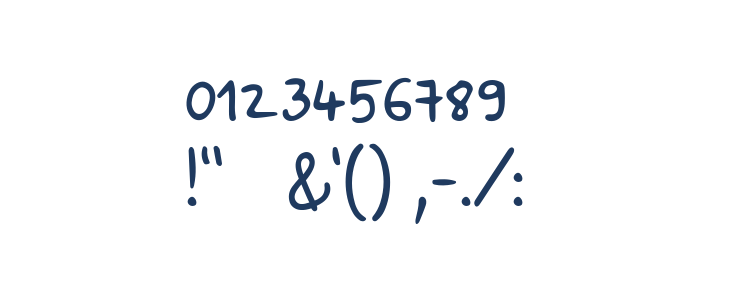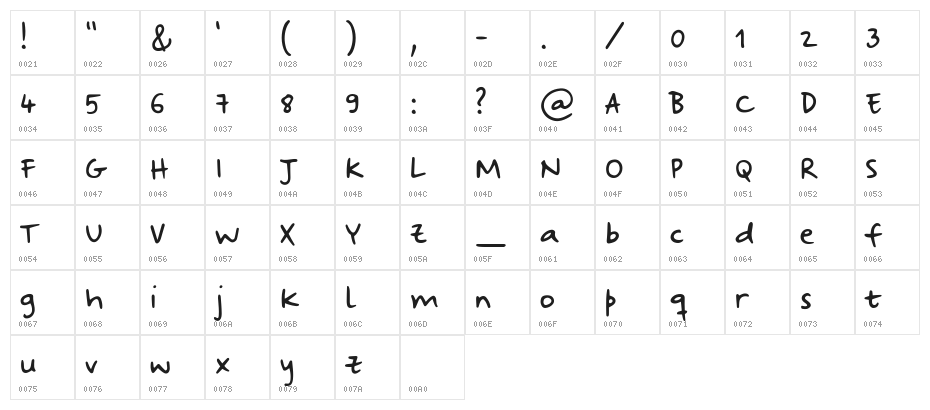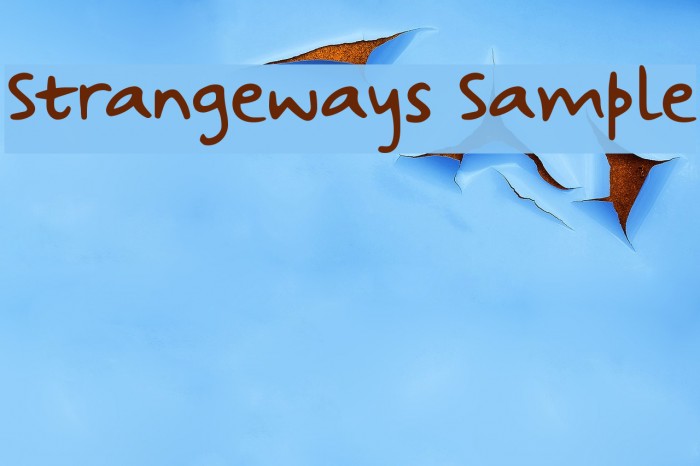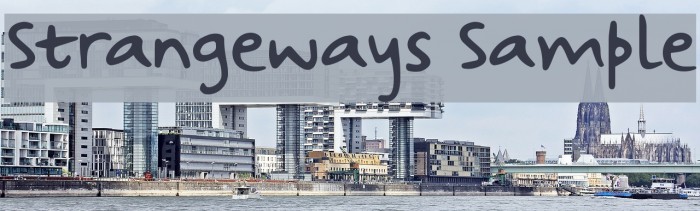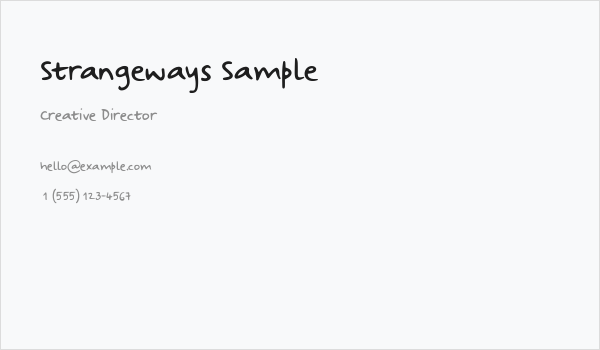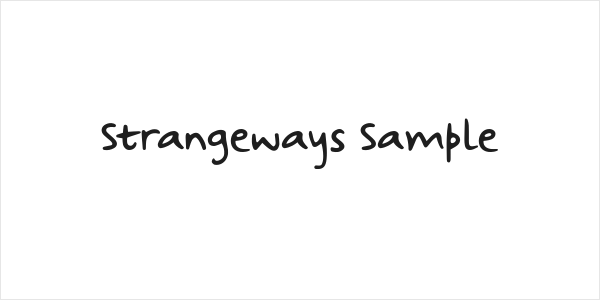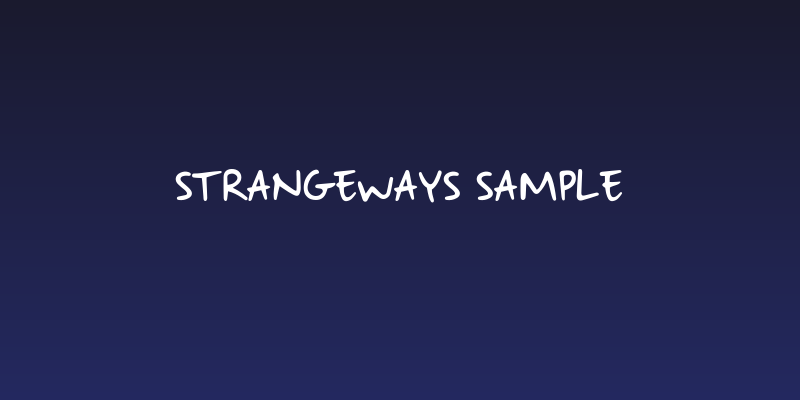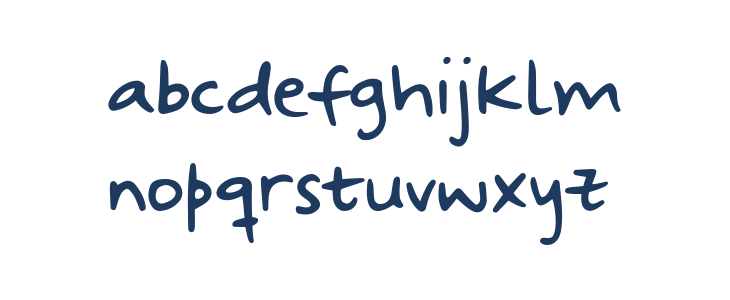
Strangeways Sample Font
Strangeways Sample Description
This font features a playful and informal handwritten style, characterized by its rounded and slightly irregular letterforms. The strokes are smooth and consistent, giving it a friendly and approachable appearance. The uppercase and lowercase letters maintain a cohesive look, with a slight tilt that adds to its casual charm. The numbers and special characters follow the same style, ensuring uniformity across all glyphs. This font is perfect for projects that require a personal touch, such as greeting cards, invitations, or children's books.
| Proposed Projects | Ideal for greeting cards, invitations, children's books, and casual branding. |